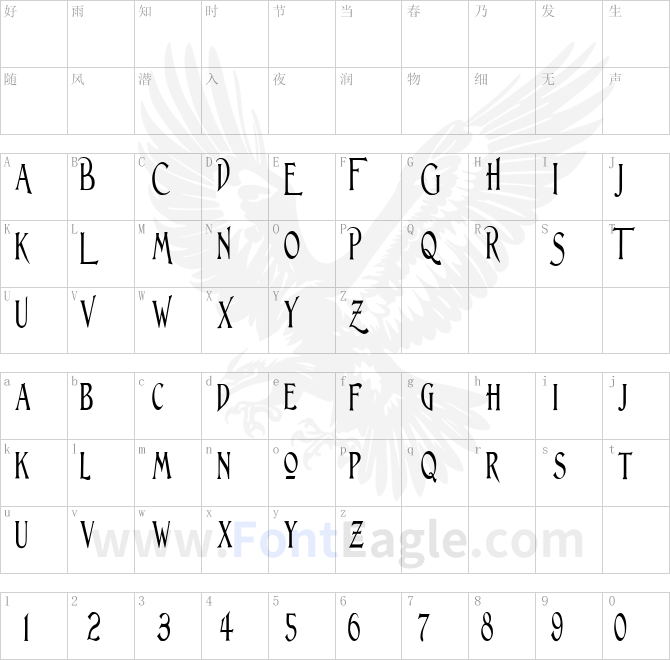
Lightfoot Narrow Extra-condensed Regular.ttf Font Image
- Font name:Lightfoot Narrow
- Font Subfamily:Extra-condensed Regular
- Font Full Name:Lightfoot Narrow Extra-condensed Regular